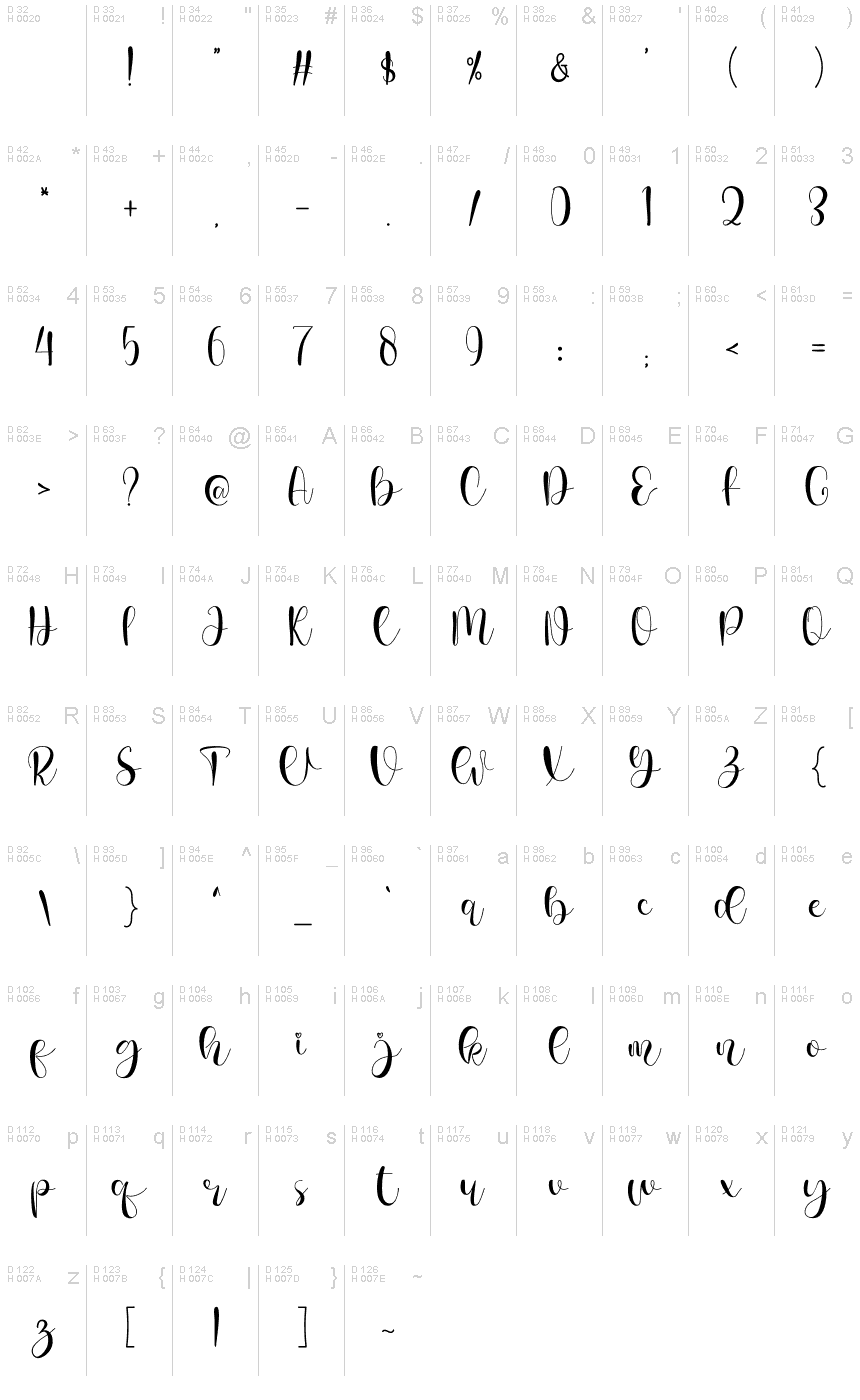
Beloved
Beloved, a light calligraphy font designed by Inermedia Studio, is perfect for adding a romantic and stylish flair to your projects. It's ideal for wedding invitations, social media posts, and other creative projects that need an elegant touch.